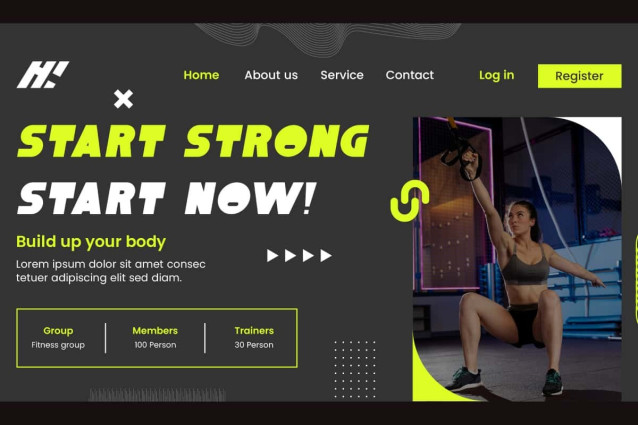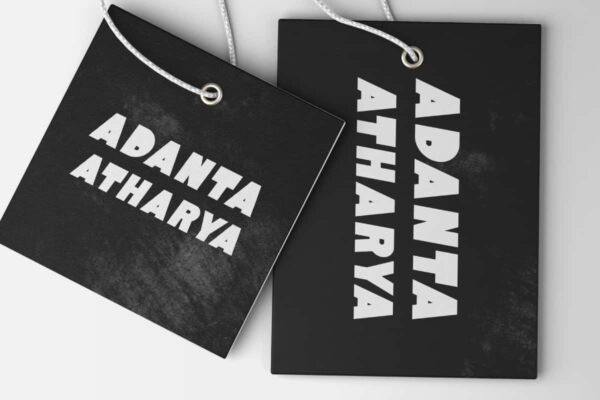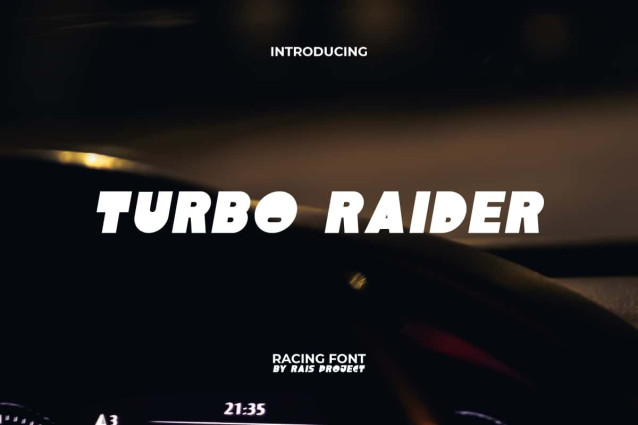
Turbo Raider Font
Turbo Raider Font is a playful but strong racing font with a unique and bold concept to make your design different from the others to make your designs standout. This font’s characters look like they were made with thin marker strokes, resulting in bold letters. It will be great for custom design, poster, label, signage, stationery, product packaging, quotes, brand image, advertisement, invitation, marketing material, website page, and more!
Turbo Raider Font includes a full set of ALL CAPS for Uppercase and Lowercase Letters, Numerals, and large range of Punctuation. This cool font will be suitable for various industries, such as sports, automotive, fashion, game, barber shop, cafe, event or festival, photography, printing, publishing, etc.